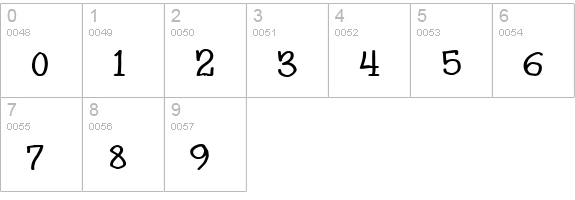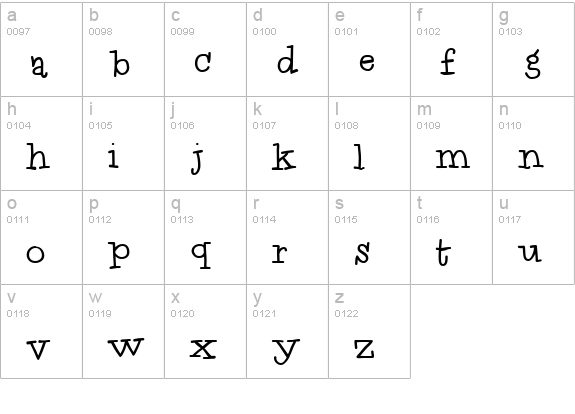
Idolwild Font Details
Idolwild font exudes elegance and sophistication, making it the perfect choice for adding a touch of class to your design projects. Its sleek and stylish appearance is sure to captivate the eyes of your audience, giving your work a polished and professional look. With its graceful curves and modern aesthetic, Idolwild font strikes the perfect balance between classic and contemporary design. The best part? Idolwild font is completely free to download at FontsMarket.com. This means you can enhance your projects with this stunning font without having to spend a dime. Whether you're working on a branding project, creating invitations, or designing a website, Idolwild font is a versatile choice that will elevate your work to the next level. Download it today and unleash your creativity with this exquisite typeface.